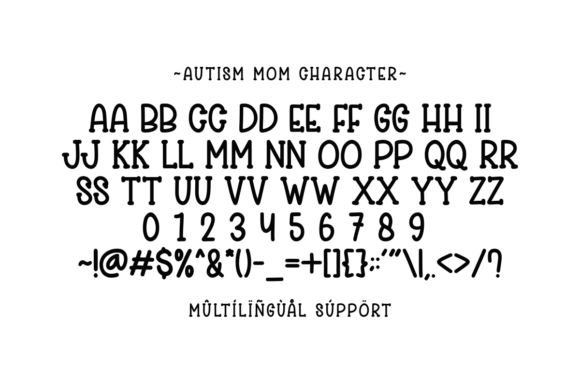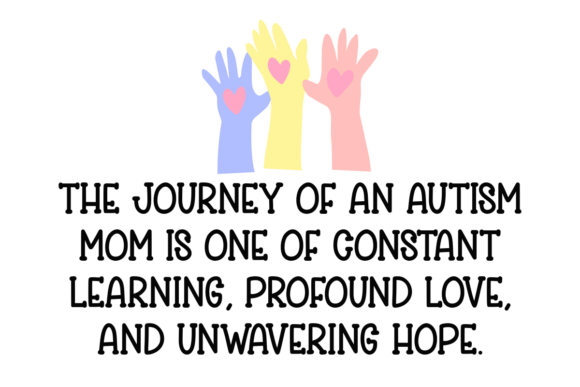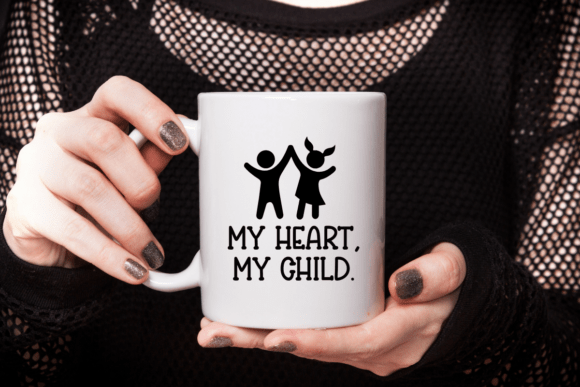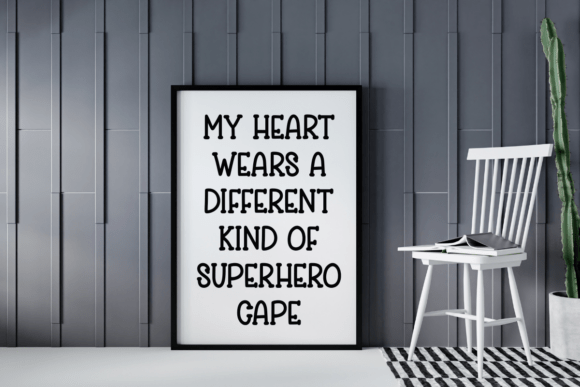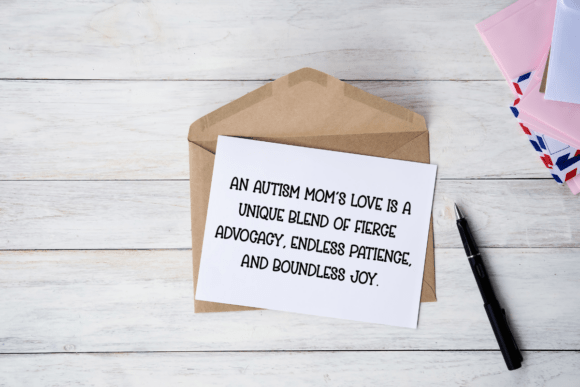
Introducing Autism Mom Font: The Perfect Choice for Creative Designs
Are you a designer, crafter, or DIY enthusiast looking for a unique and versatile font to elevate your creative projects? Look no further than the Autism Mom Font, a charming and minimalist slab serif font that’s perfect for a wide range of applications. In this article, we’ll explore the features and benefits of this fantastic font, and show you how to use it to create stunning designs that capture your audience’s attention.
What is Autism Mom Font?
Autism Mom Font is a carefully crafted slab serif font that’s designed to be both cute and elegant. Its minimalist approach makes it an excellent choice for designers and crafters who want to add a touch of personality to their projects without overwhelming the senses. The font’s clean lines, simple shapes, and subtle rounded edges create a friendly and approachable feel that’s perfect for a variety of creative projects.
Key Features of Autism Mom Font
• Cute and Minimalist Design: Autism Mom Font boasts a charming and understated design that’s perfect for creating visually appealing projects.
• Slab Serif Style: The font’s slab serif style adds a touch of sophistication and elegance to any design.
• Highly Versatile: Use Autism Mom Font for greeting cards, wedding invitations, gift labels, mugs, t-shirts, quotes, labels, and more.
• Easy to Read: The font’s clear and simple design ensures that your text is easy to read, even at small sizes.
Autism Mom Font is an excellent choice for a wide range of creative projects, including:
• Greeting Cards: Add a personal touch to your greeting cards with this charming font.
• Wedding Invitations: Make your wedding invitations stand out with the elegant and sophisticated Autism Mom Font.
• Gift Labels: Create beautiful and personalized gift labels for special occasions.
• Mugs and T-Shirts: Use Autism Mom Font to create eye-catching designs for mugs and t-shirts.
• Quotes and Labels: Add a touch of personality to your quotes and labels with this versatile font.
In conclusion, Autism Mom Font is a fantastic choice for designers, crafters, and DIY enthusiasts looking for a versatile and charming font for their creative projects. Its cute and minimalist design, slab serif style, and high versatility make it perfect for a wide range of applications. By following the tips outlined in this article, you can unlock the full potential of Autism Mom Font and create spectacular and interesting designs that capture your audience’s attention.